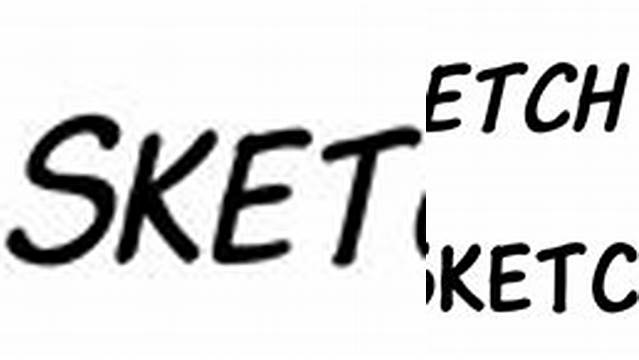
Hey everyone! Are you on the hunt for a cool, handwritten-style font that screams creativity and personality? Well, look no further! Today, we're diving deep into the world of the Norb Sketch font, exploring how you can get it for free download, and how to make the most of this awesome typeface. Whether you're a seasoned designer, a budding artist, or just someone who loves to spice up their projects, this guide has got you covered. Let's get started!
H2: What Makes Norb Sketch Font So Special?
Alright, so what's the buzz about the Norb Sketch font, anyway? Well, Norb Sketch isn’t your run-of-the-mill font; it's a digital embodiment of that hand-drawn, carefree aesthetic that instantly adds a touch of authenticity and fun to any design. Imagine a font that looks like it was scribbled right out of someone's notebook – that's the essence of Norb Sketch. It’s got a raw, imperfect quality that gives your designs a human touch, making them feel more approachable and less sterile than some of the more polished, digital fonts out there. This is particularly useful if you are looking for free fonts. The best part? You can find a norb sketch font free download!
The charm of Norb Sketch lies in its versatility. It’s perfect for a wide range of projects, from creating eye-catching headlines and logos to designing social media posts and invitations. Think about it: want to make your brand feel more friendly and inviting? Norb Sketch can help. Need to add a personal touch to a greeting card or a blog post? Norb Sketch has your back. The font’s informal style makes it ideal for conveying a sense of spontaneity and creativity, which is why it's become a favorite among designers and creatives looking to inject a bit of personality into their work. Its hand-drawn look is incredibly appealing, setting your designs apart from the sleek, ultra-modern fonts that are everywhere nowadays. Moreover, the availability of a norb sketch font free download makes it even more accessible, letting you play around with this cool typeface without any financial commitment. This opens up doors for experimentation and helps you determine if the font perfectly aligns with your style before committing to a premium option. The norb sketch font free download option is a budget-friendly solution that does not sacrifice on design, and is a great choice for anyone looking to create a unique design.
It's that ability to be both versatile and unique that makes this such a popular pick. Plus, the fact that you can get your hands on a norb sketch font free download is the cherry on top! The font comes in various weights and styles, which allows you to create a variety of effects depending on your particular design requirements. It's not just a font; it's a tool that empowers you to communicate your ideas in a distinctive and memorable way. It’s a brilliant way to add a touch of handcrafted flair to your projects, making them stand out from the crowd and giving them a truly authentic feel. So, whether you’re a designer working on a client project or just a hobbyist, there's a good chance Norb Sketch could become your new favorite font! This is especially true when you consider the ease of access to a norb sketch font free download, which makes it an easy and accessible option for many.